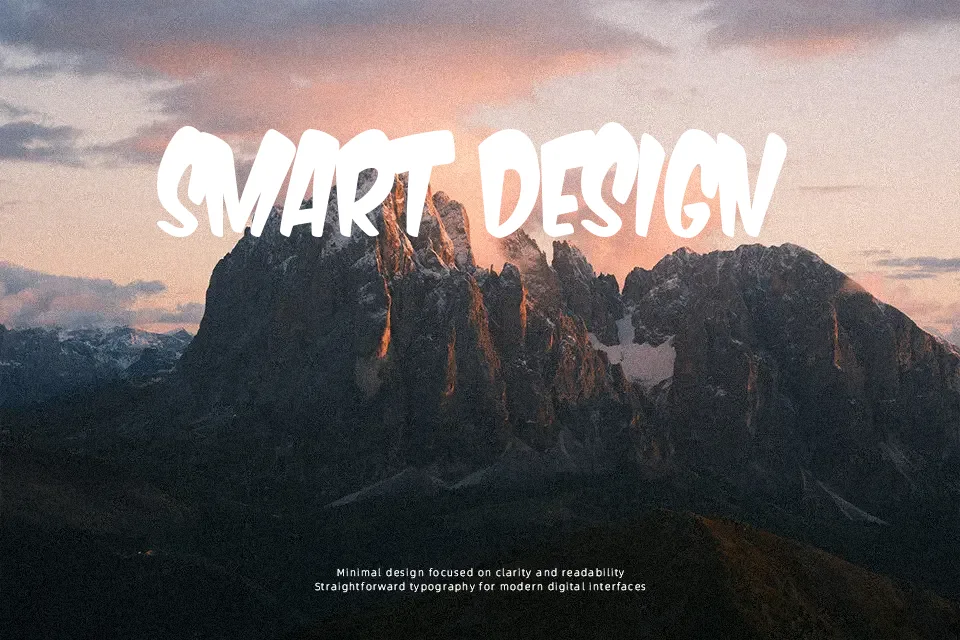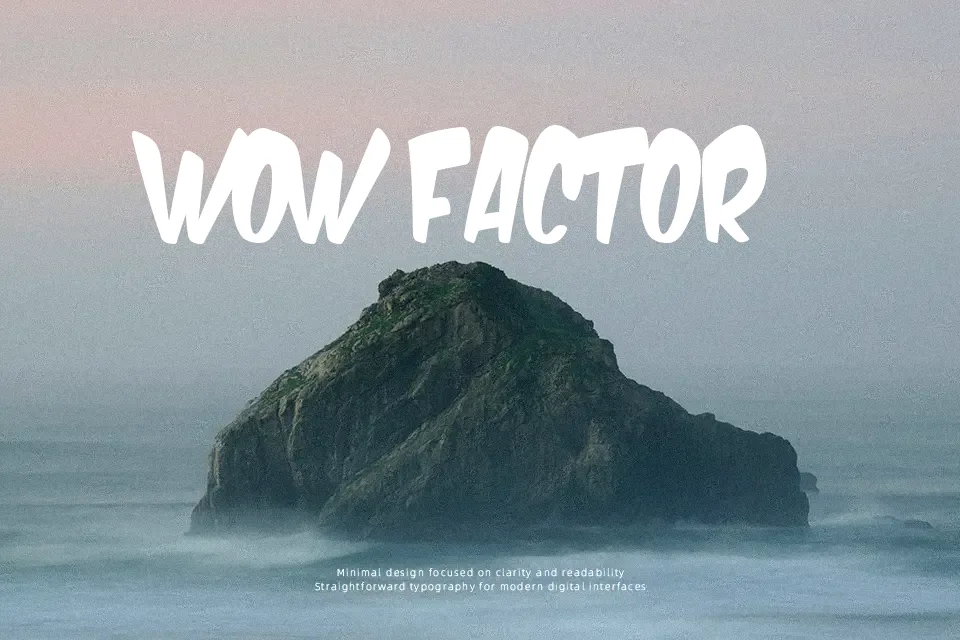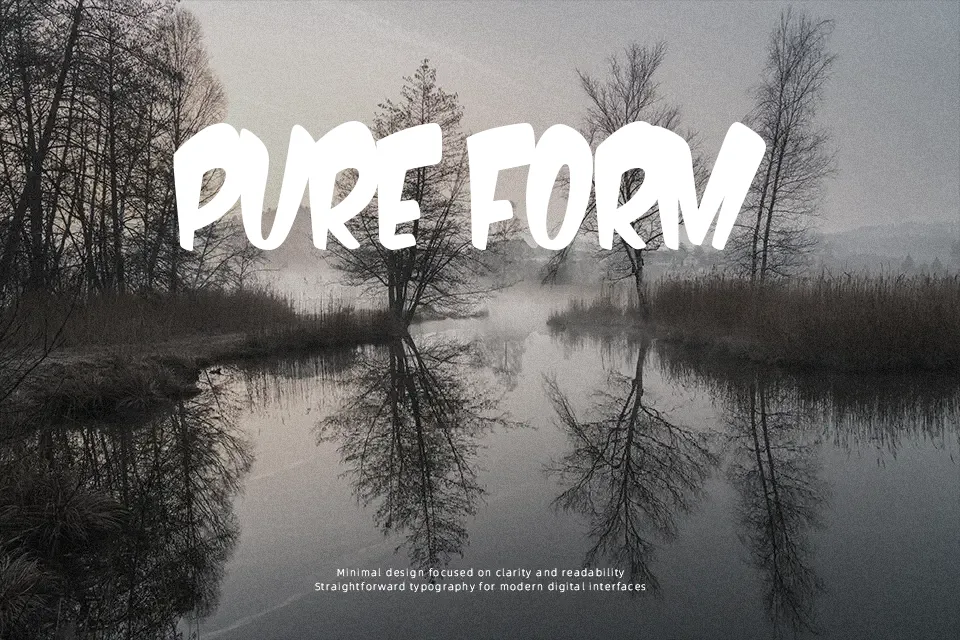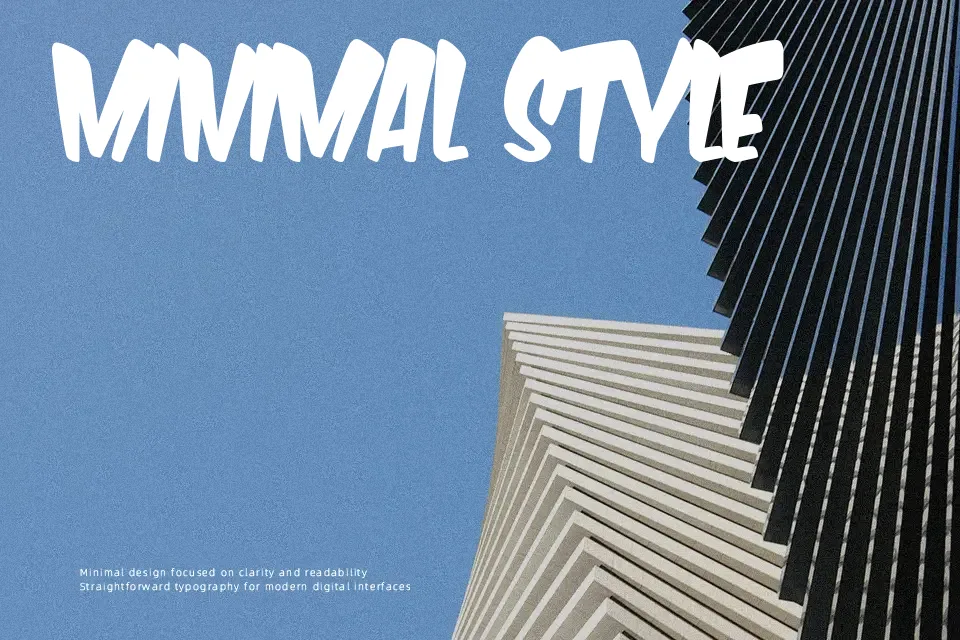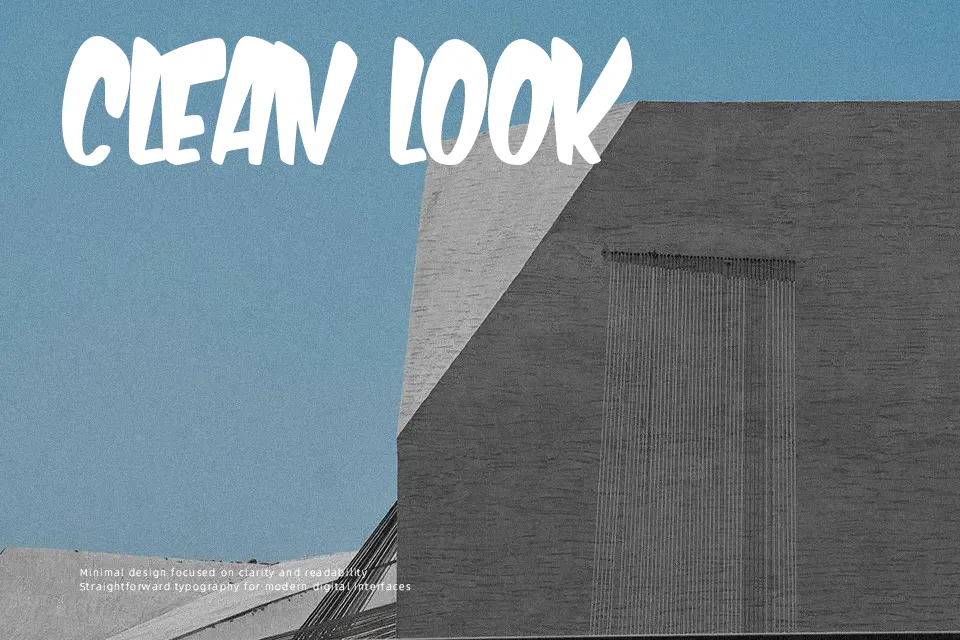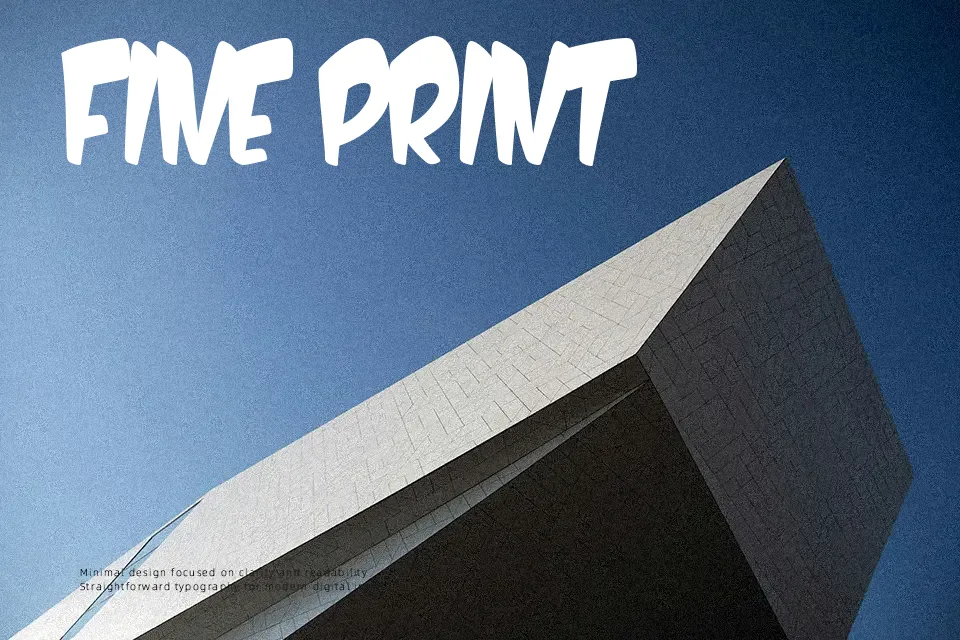
Komika Boogie Font
Bursting with a playful, upbeat tone, Komika Boogie leans into exaggerated curves, uneven stroke flow, and loose spacing that mimic hand-drawn comic lettering. The forms feel energetic and slightly chaotic, giving text a lively rhythm that stands out in titles or character-driven designs. It works well in children’s books, comic panels, or fun event posters where personality matters more than precision. However, the irregular structure and bold quirks make it tiring in long paragraphs or formal layouts. It shines when used sparingly, especially for short, expressive text that benefits from a casual, animated voice.
comic book titles
kids activity sheets
playful poster headlines
cartoon-style branding
corporate presentations
minimalist design systems
Perfect for branding, headline, and kids, with a creative and cartoon style.